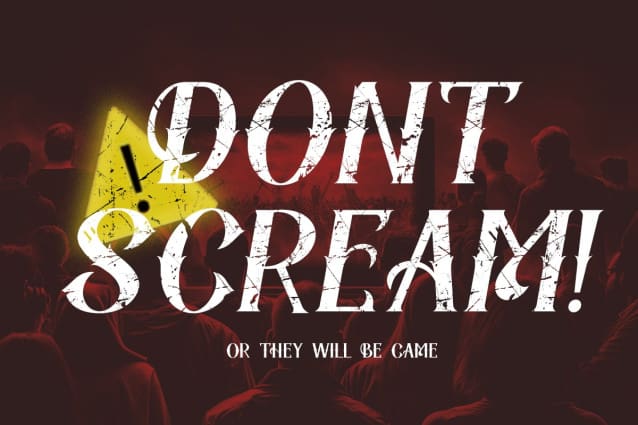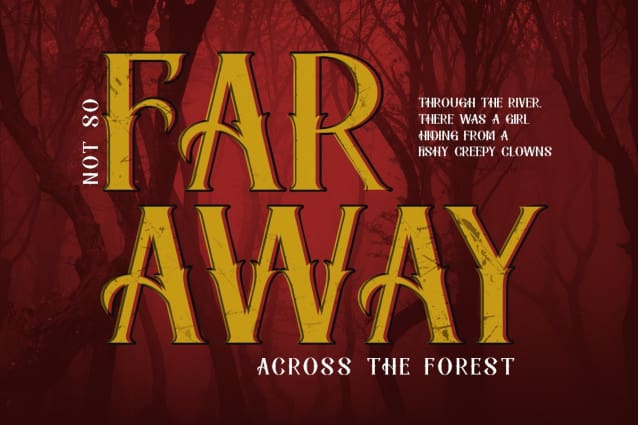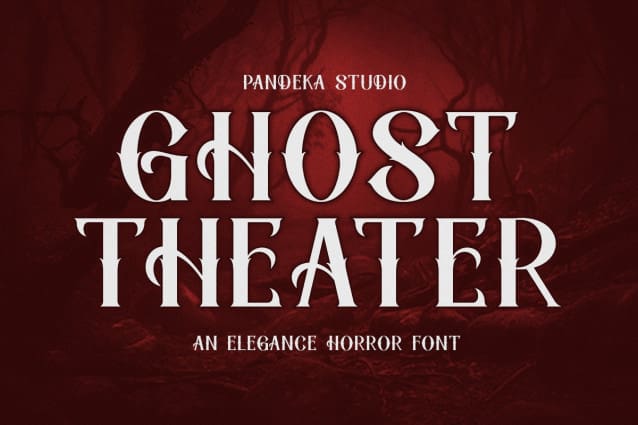
Ghost Theater Font
Ghost Theater Font, the perfect font for all your gothic and horror-themed designs. Inspired by the eerie atmosphere of haunted mansions and the spine-chilling ambiance of Halloween nights, GhostTheater brings a sharp, sinister edge to every letter.